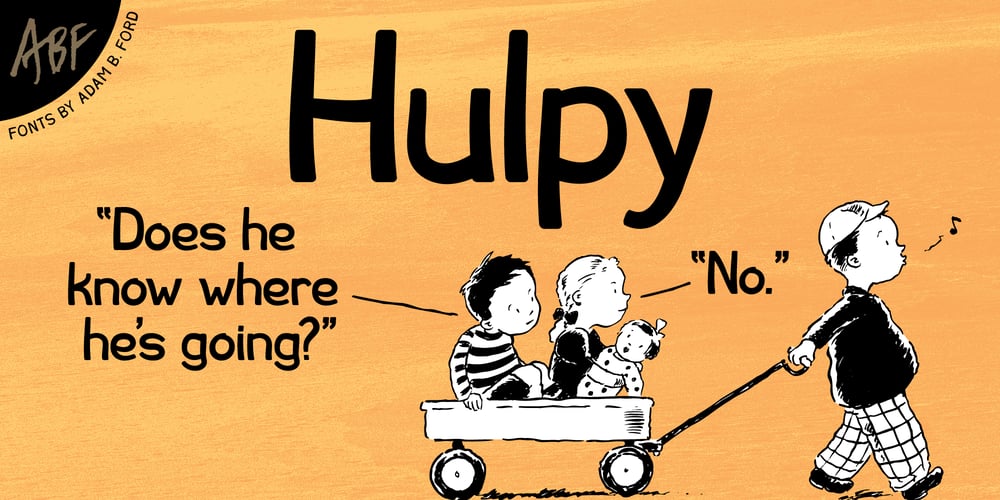
Hulpy Font Family was designed by Adam B. Ford and published by Adam B. Ford. Hulpy contains 1 styles and family package options. Hulpy is a relaxed font that won’t judge you. It was created with a combination of stocky rounded verticals and tapering curves. It could probably be used in comic strips or fun and happy headlines, but it also has enough regularity to be used in unpretentious body copy.